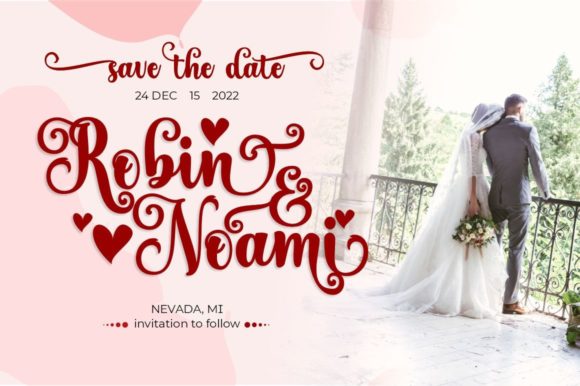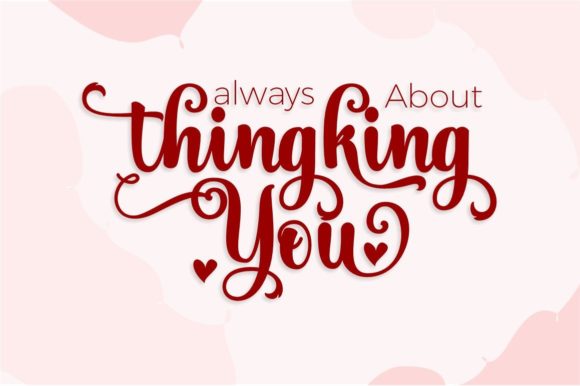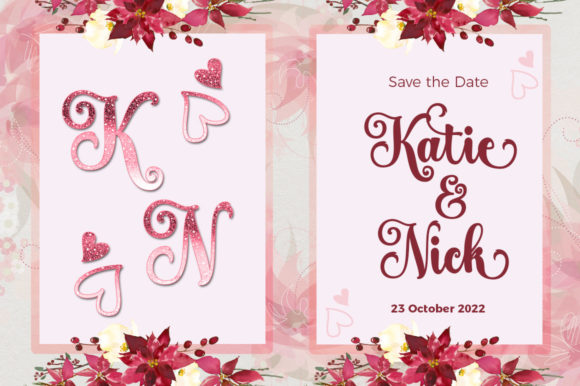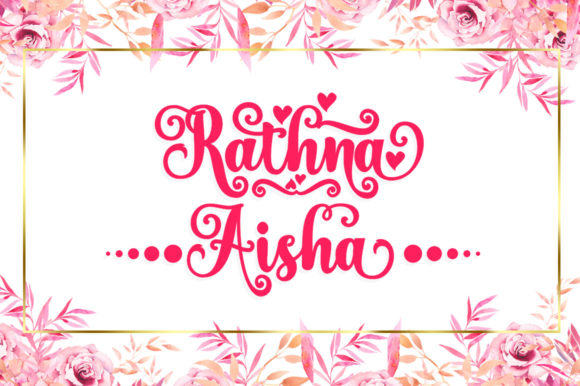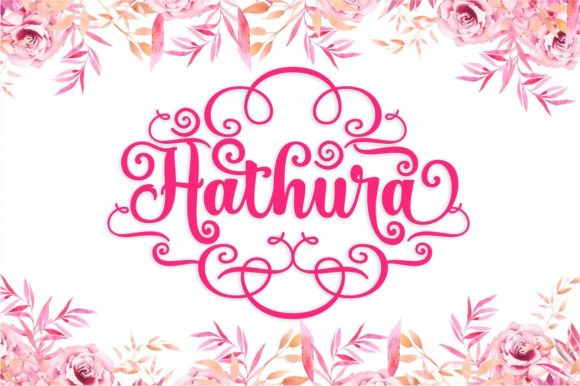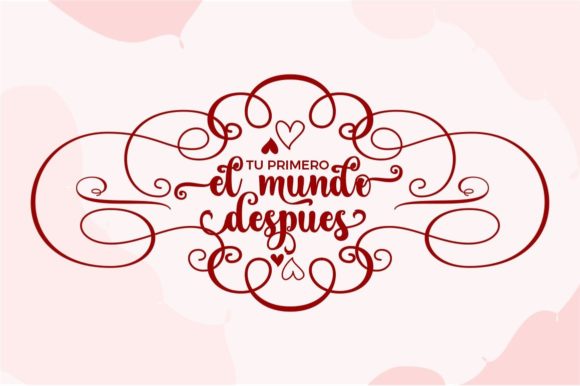
Introduction to Keista Heather Font Font
Fonts play a crucial role in design, and the Keista Heather Font font is a typeface that brings both character and versatility to any project. Whether you’re working on a branding project, a website, or a print design, the Keista Heather Font font offers a unique style that can elevate your work.
Keista Heather is a stylish and incredibly elegant script font.
It looks stunning on wedding invitations, thank you cards, quotes, greeting cards, logos, business cards and every other design which needs a handwritten touch This font is PUA encoded which means you can access all of the glyphs and swashes with ease.
Key Features of Keista Heather Font Font
Why Choose Keista Heather Font Font?
The Keista Heather Font font is more than just a typeface – it’s a design tool that helps you communicate your message with style and clarity. Its unique character set and versatile design make it suitable for a wide range of applications, from elegant invitations to bold headlines.
With its carefully crafted letterforms and balanced proportions, the Keista Heather Font font ensures readability and visual appeal across all mediums.
What makes Keista Heather Font font special?
The Keista Heather Font font stands out with its unique design, exceptional readability, and versatility across various design applications.